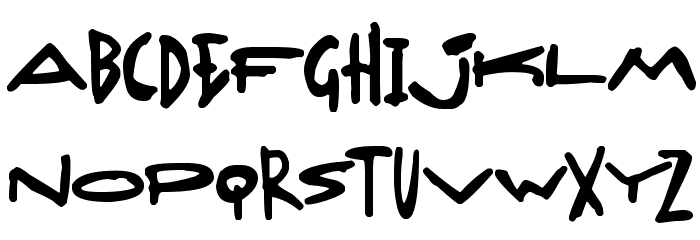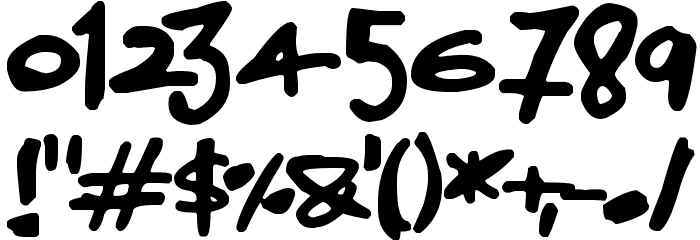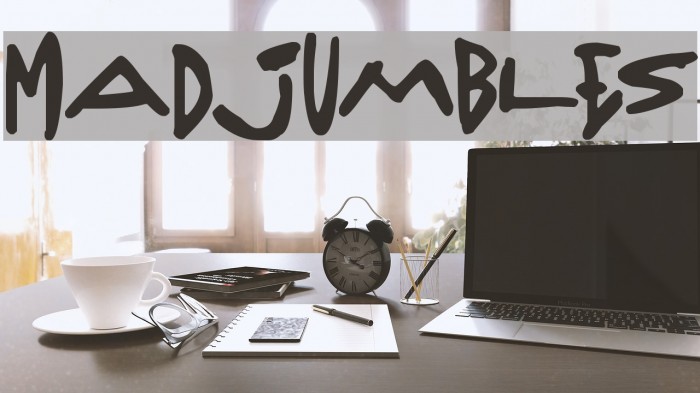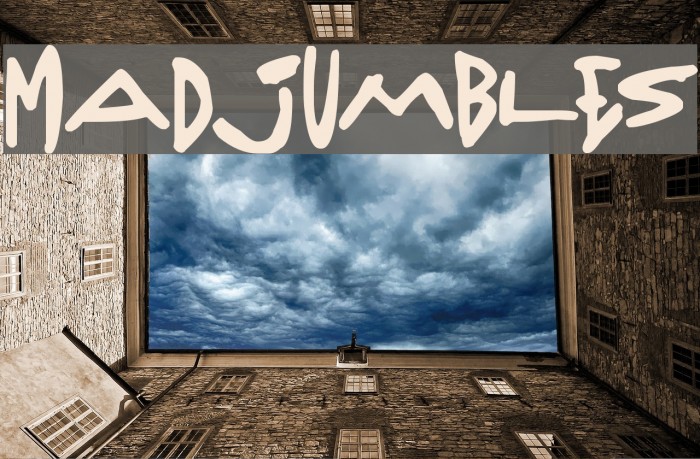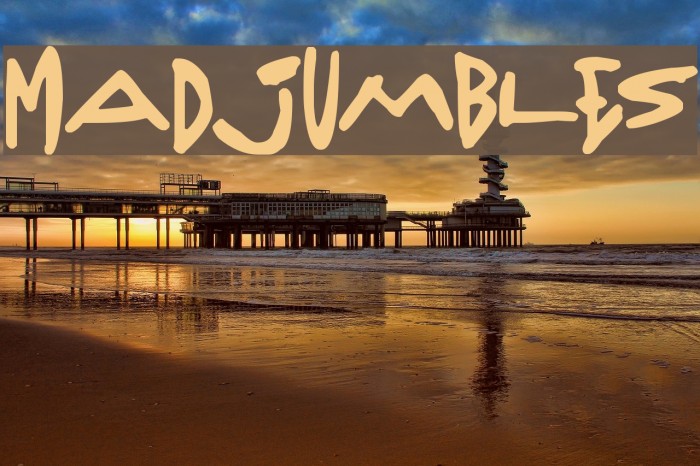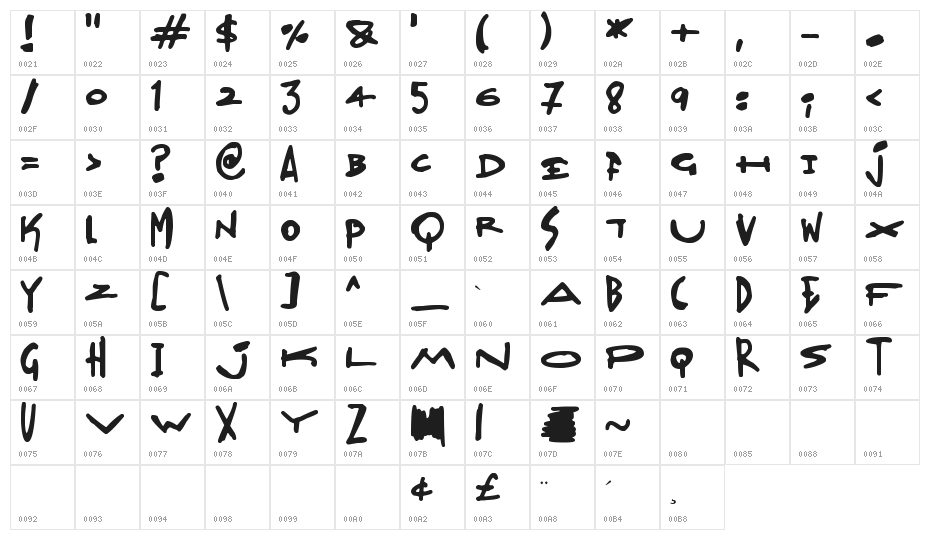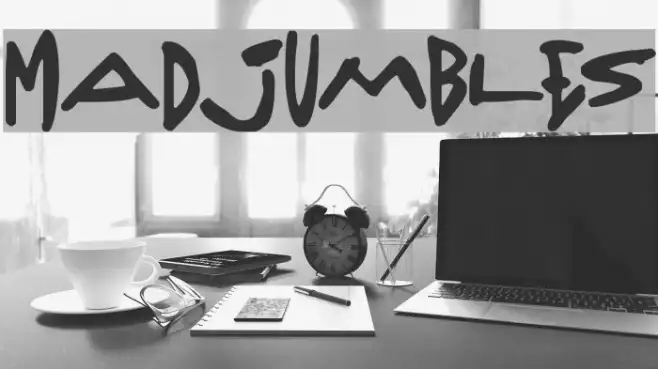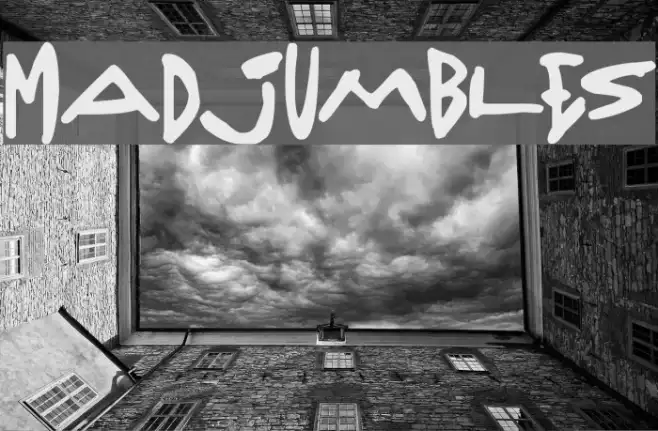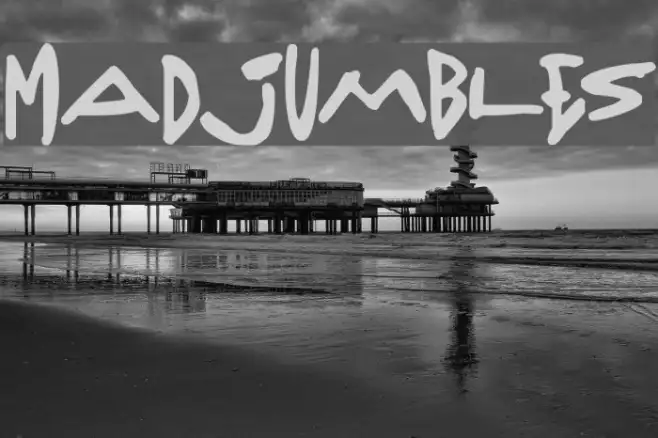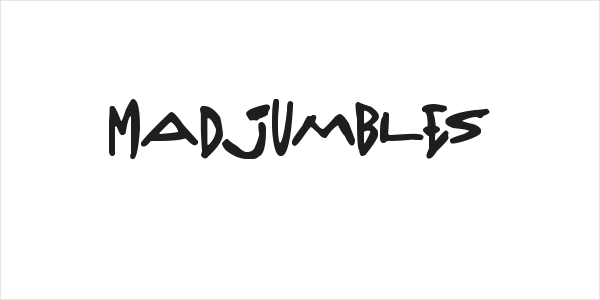
Madjumbles Font
This font features a bold, playful style with a hand-drawn appearance. The characters are irregular and dynamic, giving a sense of movement and energy. The uppercase and lowercase letters maintain a consistent style, with exaggerated curves and strokes that vary in thickness. The numbers and special characters follow the same whimsical design, making the font suitable for creative and informal projects. The overall look is lively and expressive, perfect for capturing attention.
A bold, playful, hand-drawn font with dynamic, irregular characters.
- Proposed Projects: Ideal for children's books, comic strips, playful branding, and creative posters.